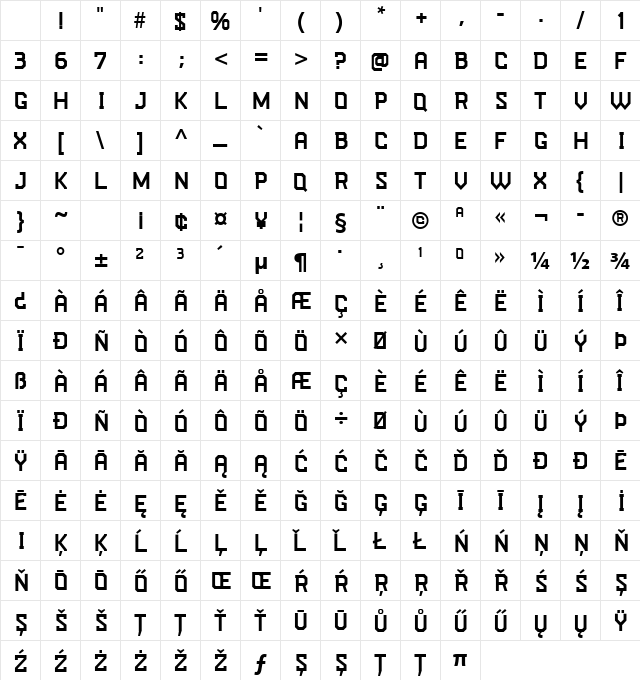
Tough Love is built around its visual character rather than neutral utility - its distinctive forms are designed to make an impression at display sizes.
Font Pairing: Pair with a clean neutral sans-serif for body copy to let Tough Love's character lead without overwhelming the composition.
Pro Tip: Use Tough Love exclusively at display sizes - it was designed to be seen, not read at length. Let a neutral companion handle body copy.